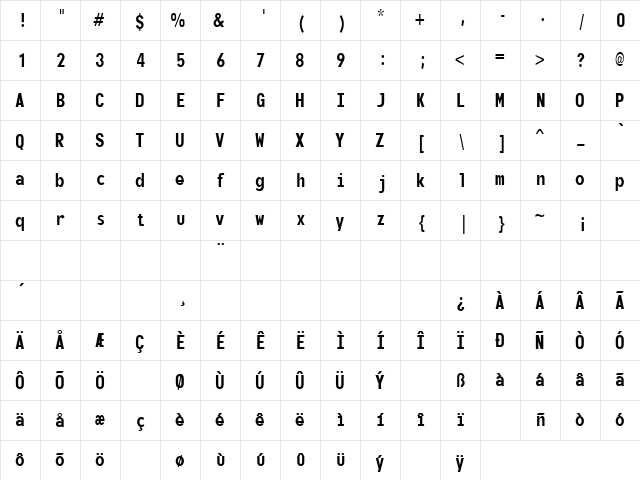
Monofonto Regular
Design Context for Monofonto Typeface
Monofonto brings the precise, column-aligned rhythm of monospaced typography to designs that value technical clarity and systematic order.
Pro Tip: Use Monofonto with slightly increased line-height for extended reading — fixed-width spacing can feel dense in longer passages without extra breathing room.